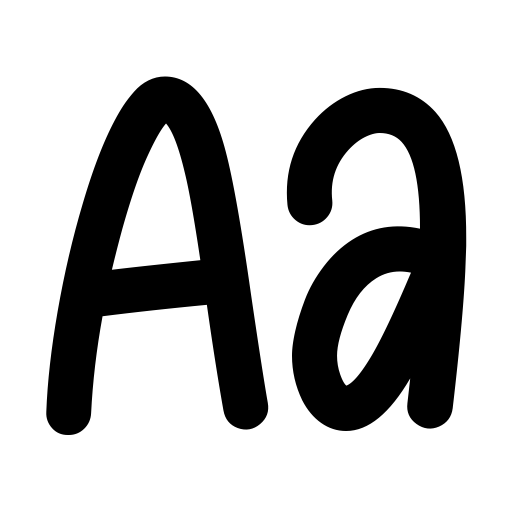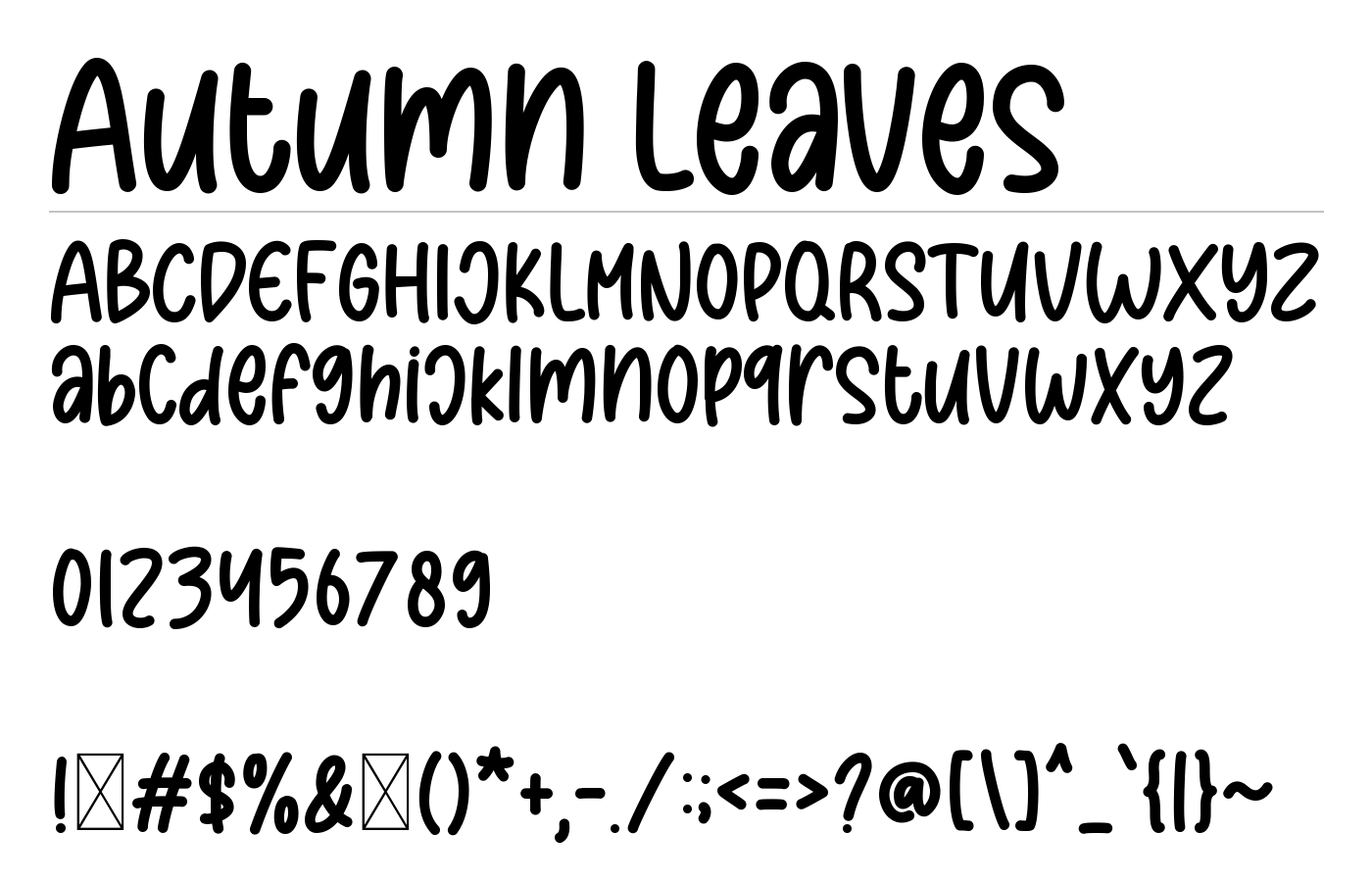
Autumn Leaves is a casual, handwritten sans serif font with a friendly and approachable feel. Its rounded, slightly irregular letterforms and medium weight give it a playful yet legible style, making it ideal for informal branding, children’s materials, and creative projects that want to convey warmth and personality. This font works well in headlines, invitations, and packaging where a personal, relaxed touch is desired.
Autumn Leaves Font
About Autumn Leaves Font